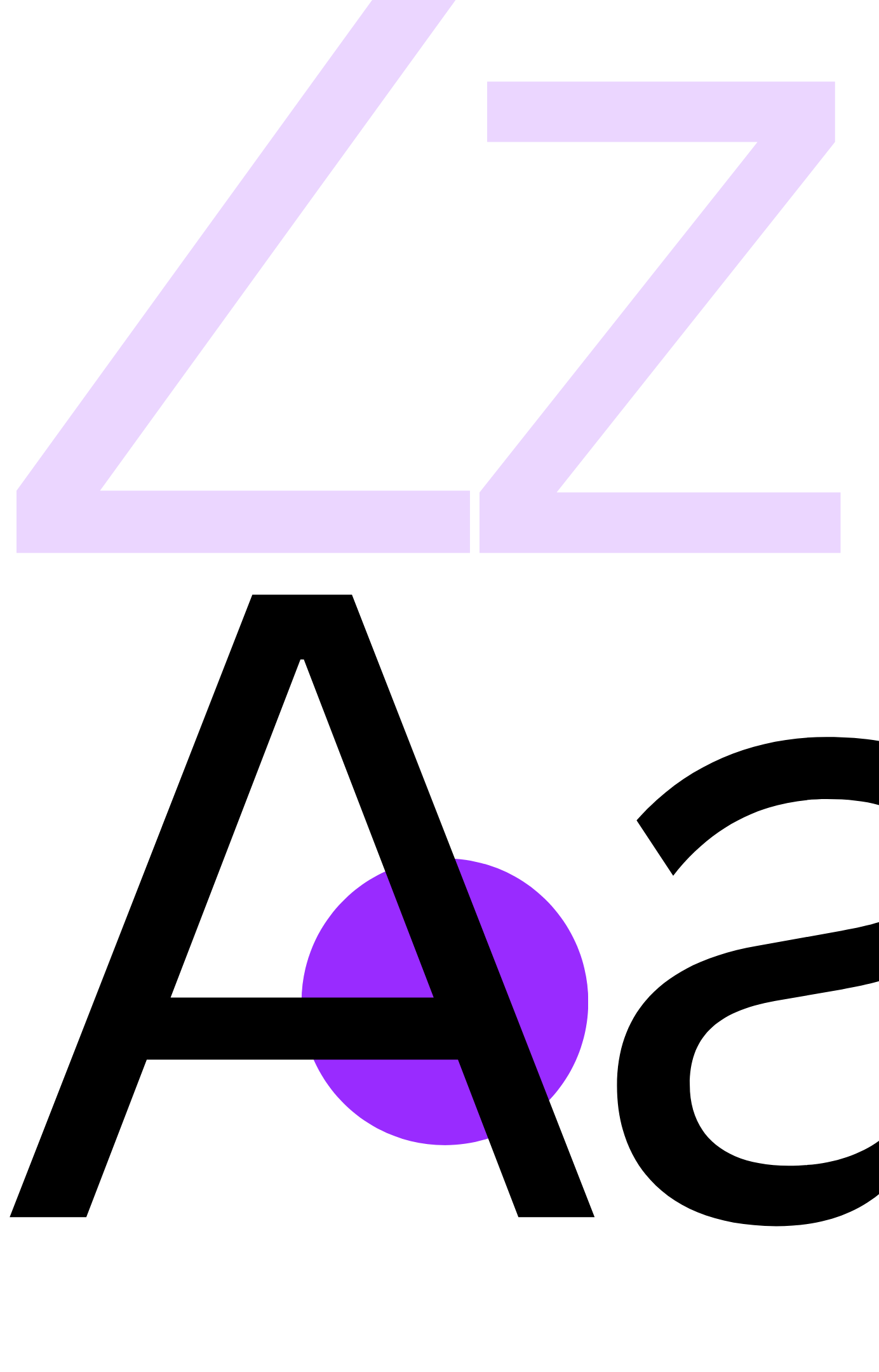
What the font!?
Understand font categories and learn how to choose fonts that complement your design’s message.
• How to match fonts to your message and purpose
• Differences between serif, sans serif, and display fonts
• How to create font pairings that enhance readability